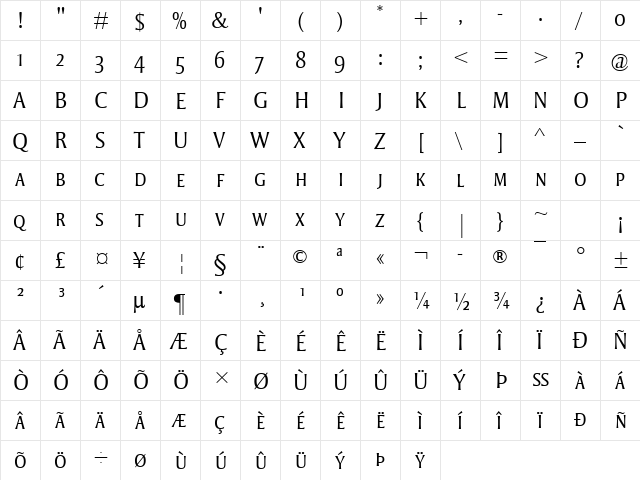
Strayhorn MT SC Light Regular
| Foundry | Agfa Monotype Corporation |
Design Context for Strayhorn MT SC Light Typeface
Strayhorn MT SC Light offers clean, dependable letterforms without strong stylistic allegiance, making it a practical choice for designers who need flexibility. Its slender proportions lend an understated elegance to any composition.